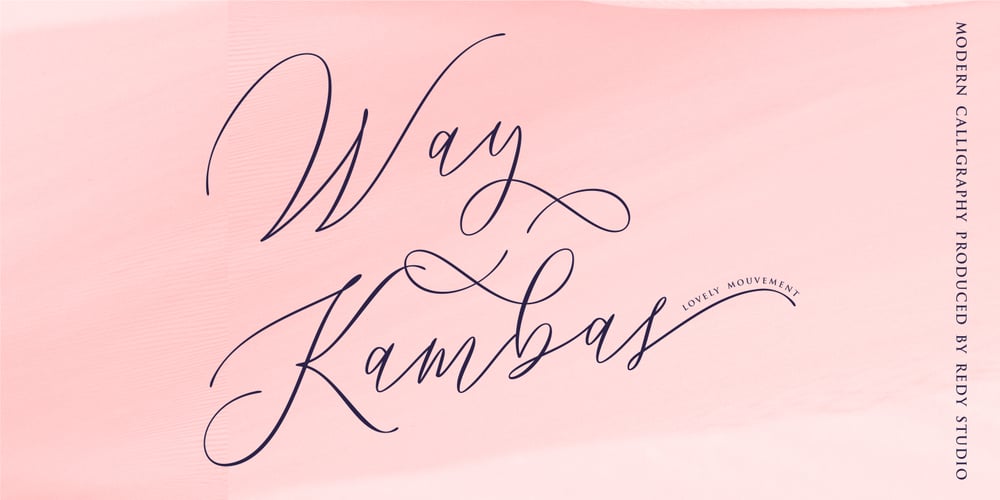
Way Kambas Font Family was designed by Nurul Fajri Redy and published by Redy Studio. Way Kambas contains 1 styles and family package options. Way Kambas – Modern Calligraphy FontsHello, I’m Way Kambas. I’m a modern calligraphy font with thin strokes and beautiful movements. Way Kambas is natural, stylish, and a perfect combination of traditional calligraphy and modern design. Combining thin strokes with beautiful movement, this font is built to bring any design project to life. You can use me for every design project as well (especially for wedding invitations, quote, greeting cards, and any romantic/love project).Way Kambas features: A full set of upper & lowercase characters Numbers & punctuation Ligatures Lowercase beginning swashes Lowercase ending swashes Some lowercase alternates PUA Encoded Characters – Fully accessible without additional design software. Feel free to give me a message if you have a problem or question. Thank you so much for taking the time to look at one of our products.